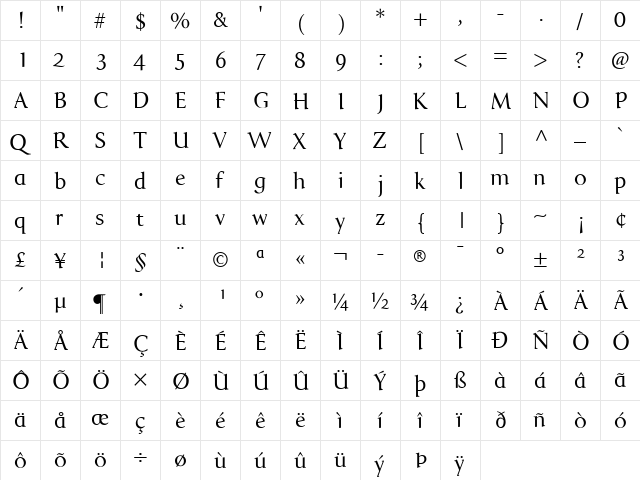
AIArbor Book Font Preview
AIArbor Book
AIArbor Book Font Details
| Foundry | \ Alphabets, Inc |
Design Context for AIArbor Typeface
AIArbor offers clean, dependable letterforms without strong stylistic allegiance, making it a practical choice for designers who need flexibility.